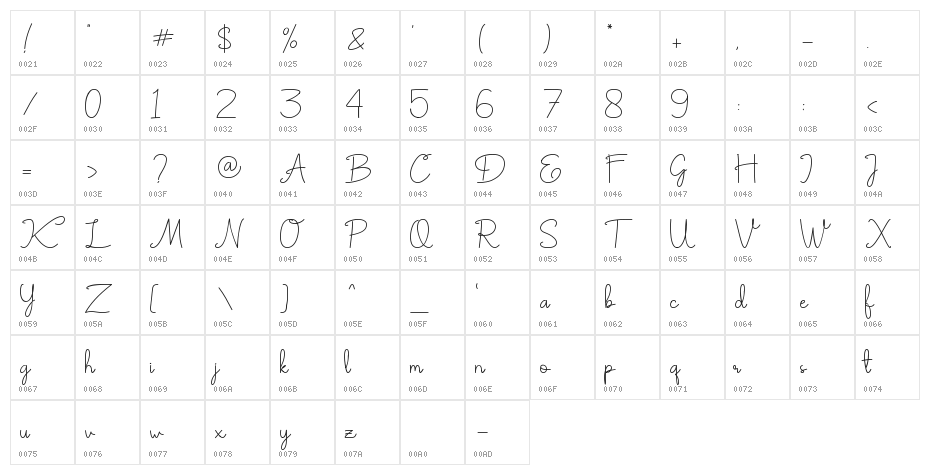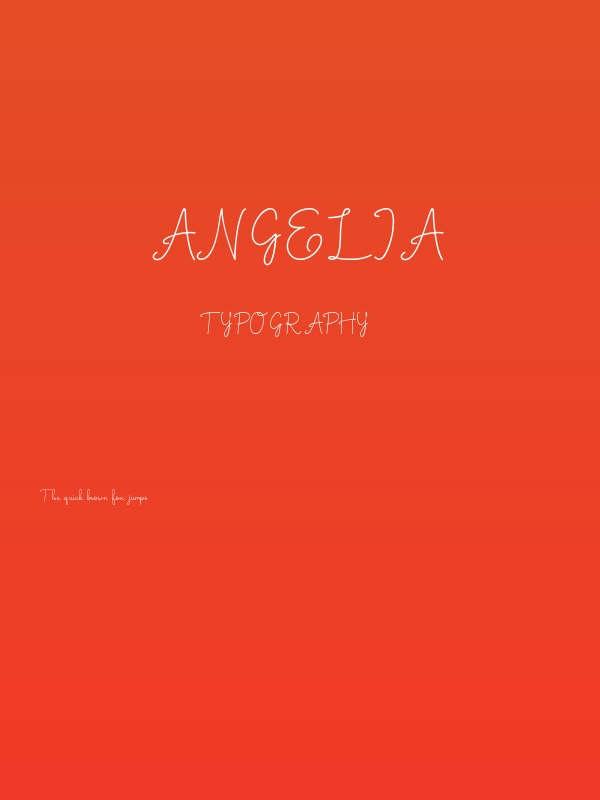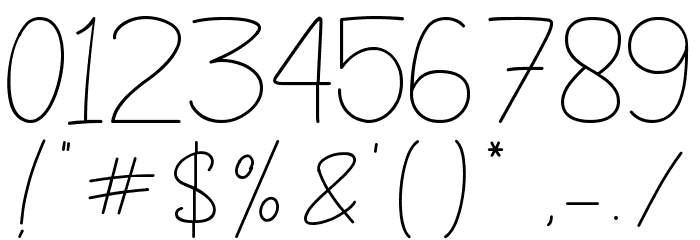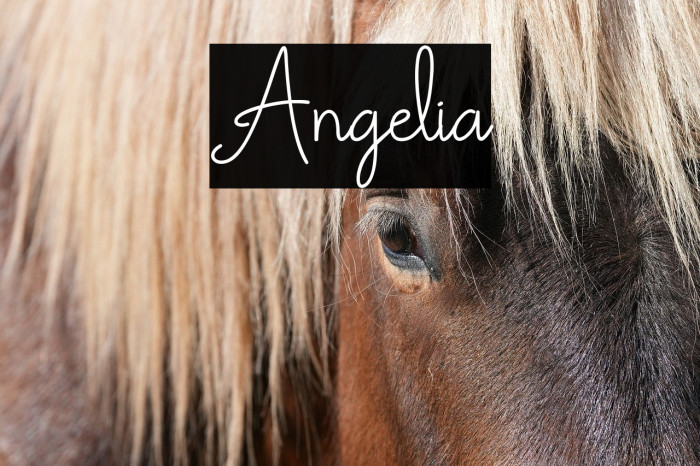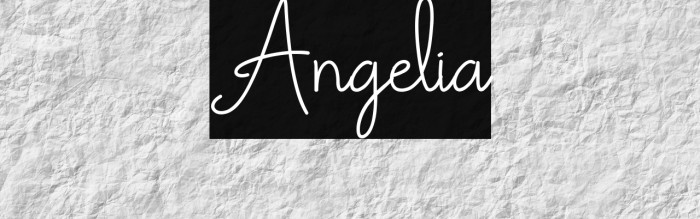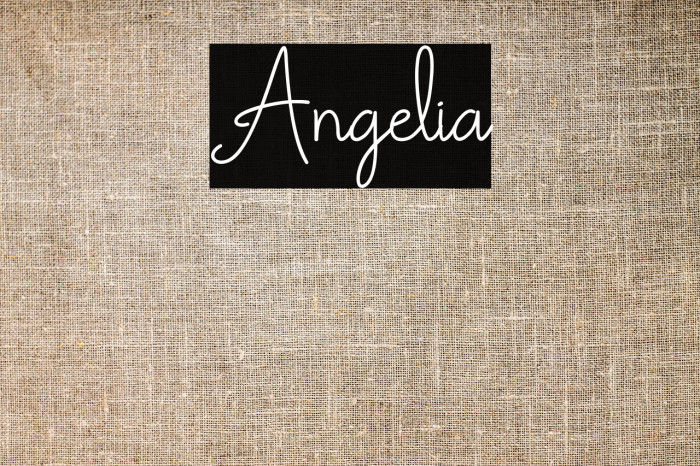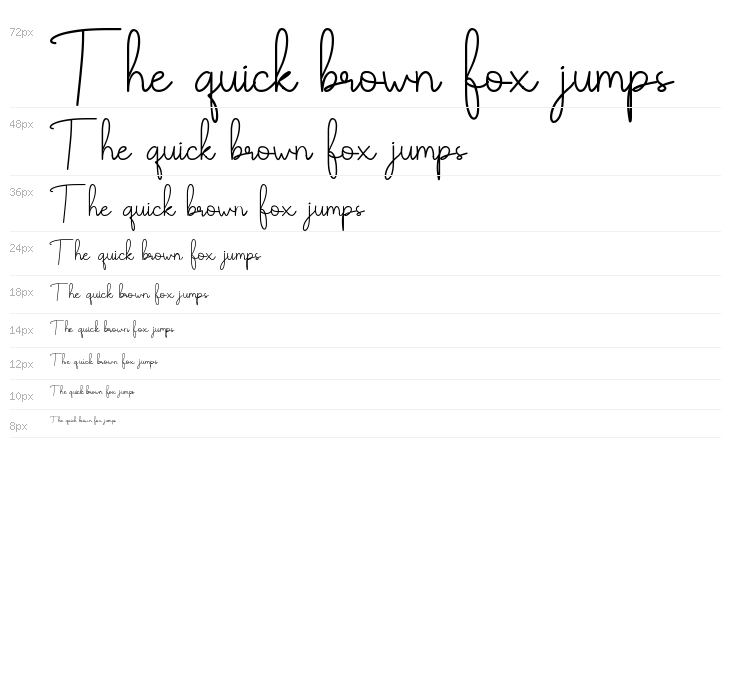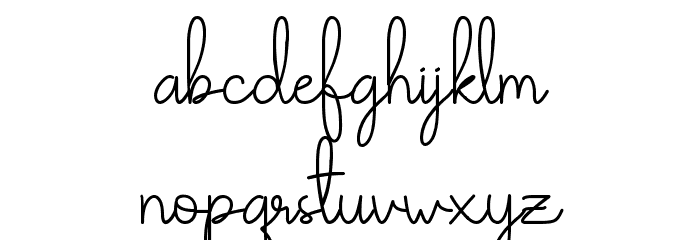
Angelia Font
Angelia Description
This font features a delicate and flowing script style, characterized by its elegant and smooth curves. The uppercase letters are slightly more formal, with a graceful and airy appearance, while the lowercase letters maintain a consistent fluidity, enhancing readability. The numerals are clear and distinct, complementing the overall aesthetic. Special characters are thoughtfully designed, maintaining the font's cohesive look. This font exudes a sense of sophistication and charm, making it suitable for a variety of design applications.
| Use Case | Logos, Invitations, Stationery |
| Proposed Projects | Ideal for wedding invitations, greeting cards, elegant branding, and personal stationery. |